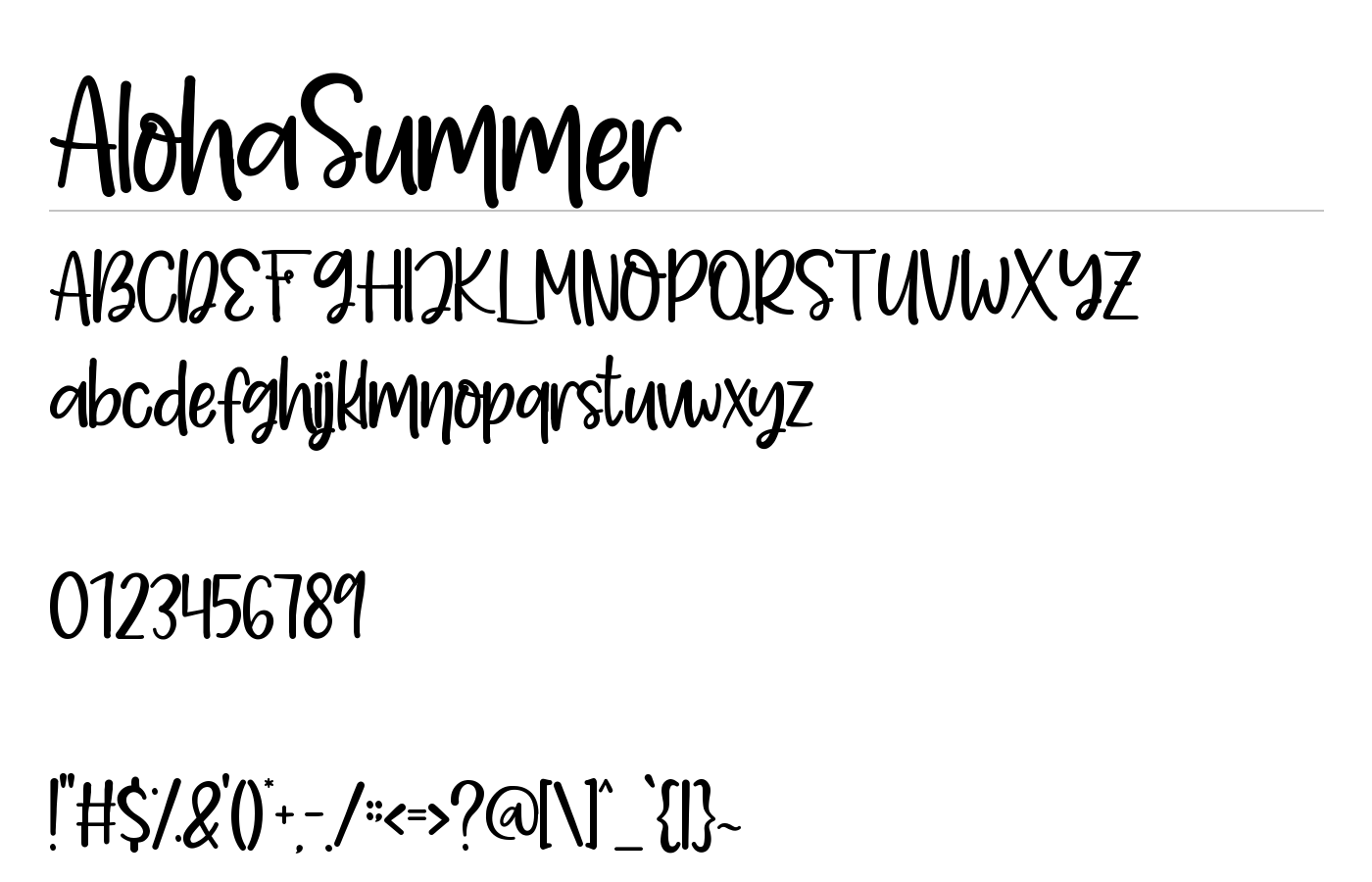
AlohaSummer is a playful and casual handwritten font with a light weight and tall, narrow letterforms that convey a friendly, approachable vibe. Its organic, slightly irregular strokes and quirky character shapes make it perfect for designs needing a relaxed, summery feel, such as invitations, branding for lifestyle products, or informal headlines. This font brings warmth and personality, making it ideal for projects that want to appear personal, fun, and inviting.
AlohaSummer Font
About AlohaSummer Font
| Font family | AlohaSummer Font |
| Designer | Jamaludin @JimtypeStudio |